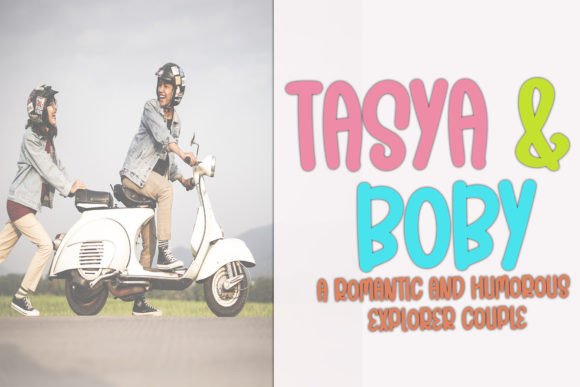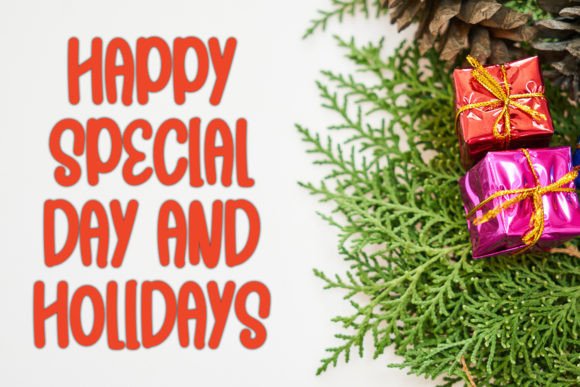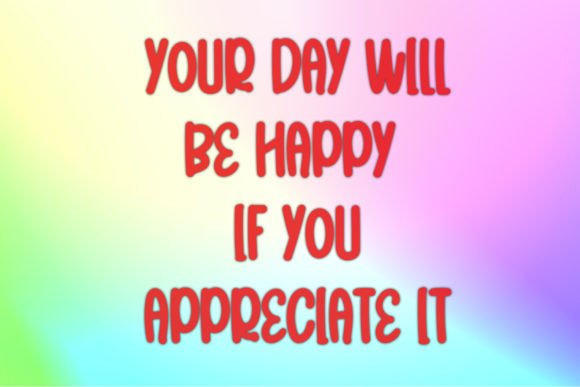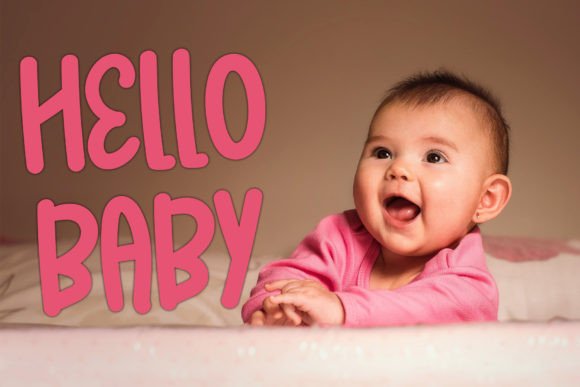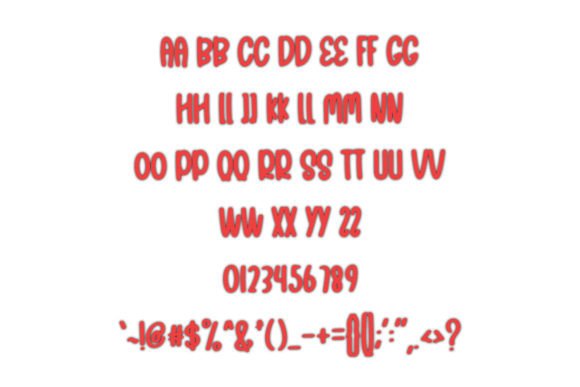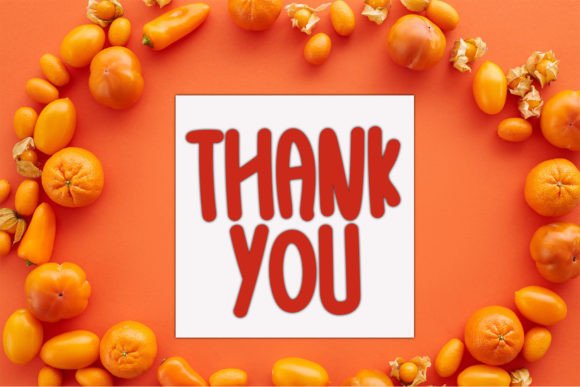
Introduction to Hello Vionna Font
As a designer, have you ever found yourself staring at a blank canvas, waiting for that perfect font to spark your creativity? For me, that moment came when I stumbled upon the Hello Vionna Font. Its elegant touch and timeless style instantly captured my attention, and I knew I had to learn more about this beautiful display font.
| 👤 Author | PiPi Creative |
With its transparent background and high-quality design, the Hello Vionna Font is a valuable resource for any creative project. Whether you’re working on a logo, a poster, or a social media graphic, this font is sure to elevate your design to the next level. And the best part? It’s available for a free download, making it an accessible design resource for designers of all levels.
Key Features of Hello Vionna Font
- High-quality design resource perfect for creative projects, including digital art and graphic design.
- Features a transparent background, allowing for easy layering and customization in design projects.
- Designed to be highly legible, making it an excellent choice for body text and headings in creative projects.
Honest Review: Hello Vionna Font
I recently stumbled upon the Hello Vionna Font, and I must say it’s a lovely addition to any creative project. The first thing that caught my eye was its high quality and sleek design. This font is perfect for designers who want to give their projects a touch of elegance.
Here are some of the things that work well with the Hello Vionna Font:
- Its transparent background makes it easy to overlay on any image or background, giving you a lot of creative freedom.
- The font is highly versatile and can be used for a wide range of projects, from headings to body text.
- The font might be a bit too elegant for more casual or playful projects.
- It’s not ideal for projects that require a lot of bold or italic text.
Overall, I’m really impressed with the Hello Vionna Font. It’s a high-quality design resource that’s perfect for designers who want to add a touch of sophistication to their projects. I would definitely recommend it as a go-to font for any creative project.
The Hello Vionna Font is a high-quality, versatile design resource ideal for creative projects. Its transparent background makes it easy to incorporate into various designs, while its unique style adds a touch of sophistication.
The Hello Vionna Font is suitable for a wide range of creative projects, including:
- Graphic design projects, such as logos, brochures, and business cards.
- Web design projects, such as websites, blogs, and social media graphics.
- Print design projects, such as posters, flyers, and invitations.